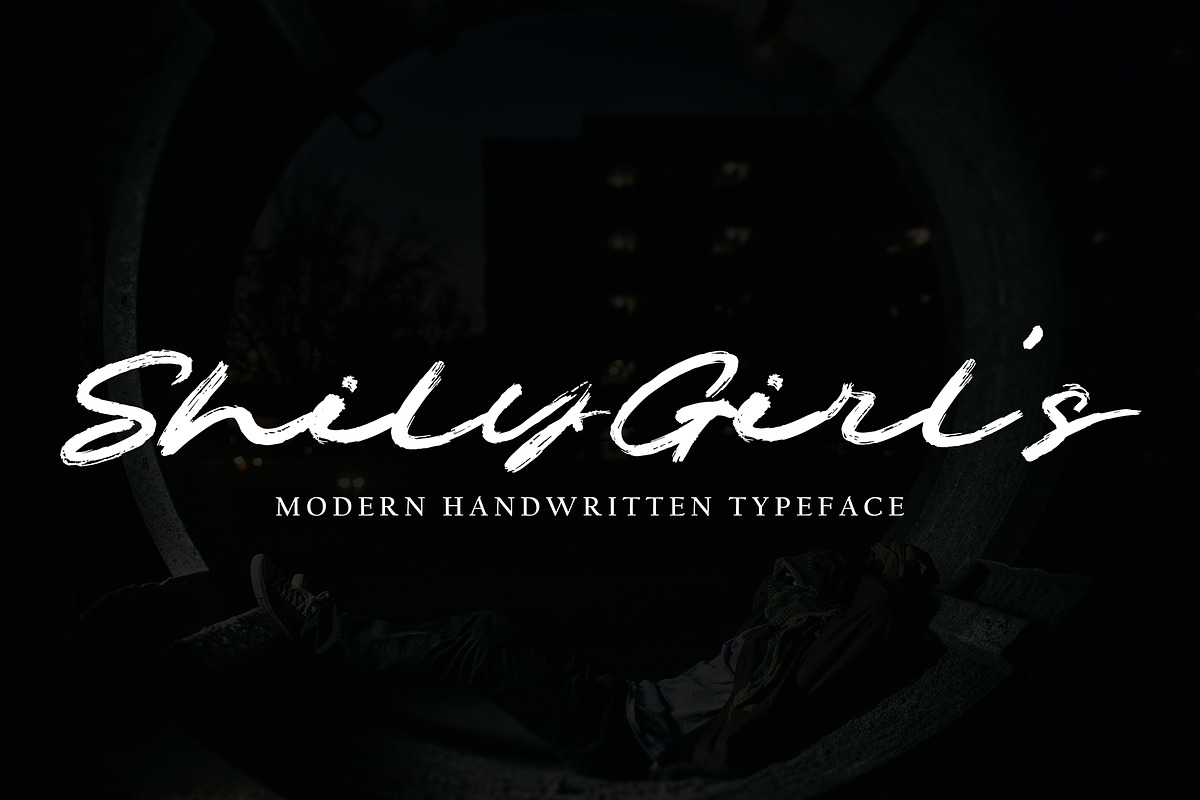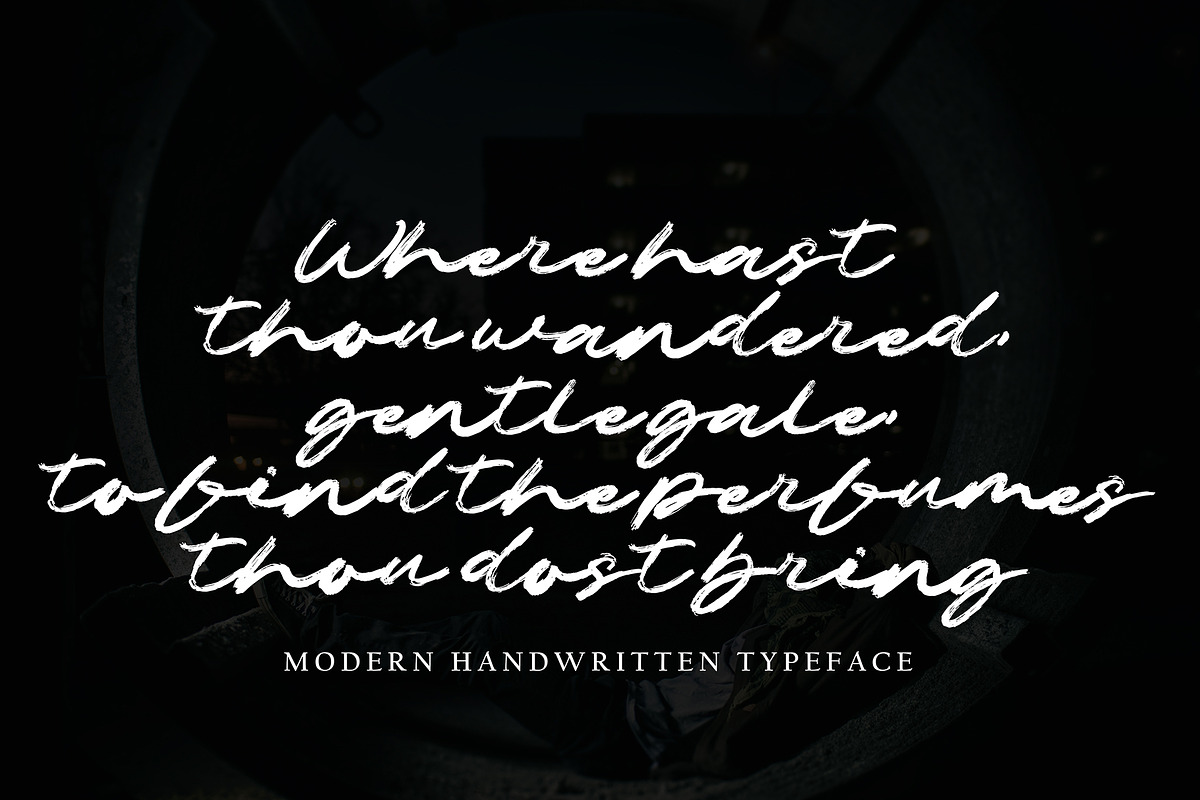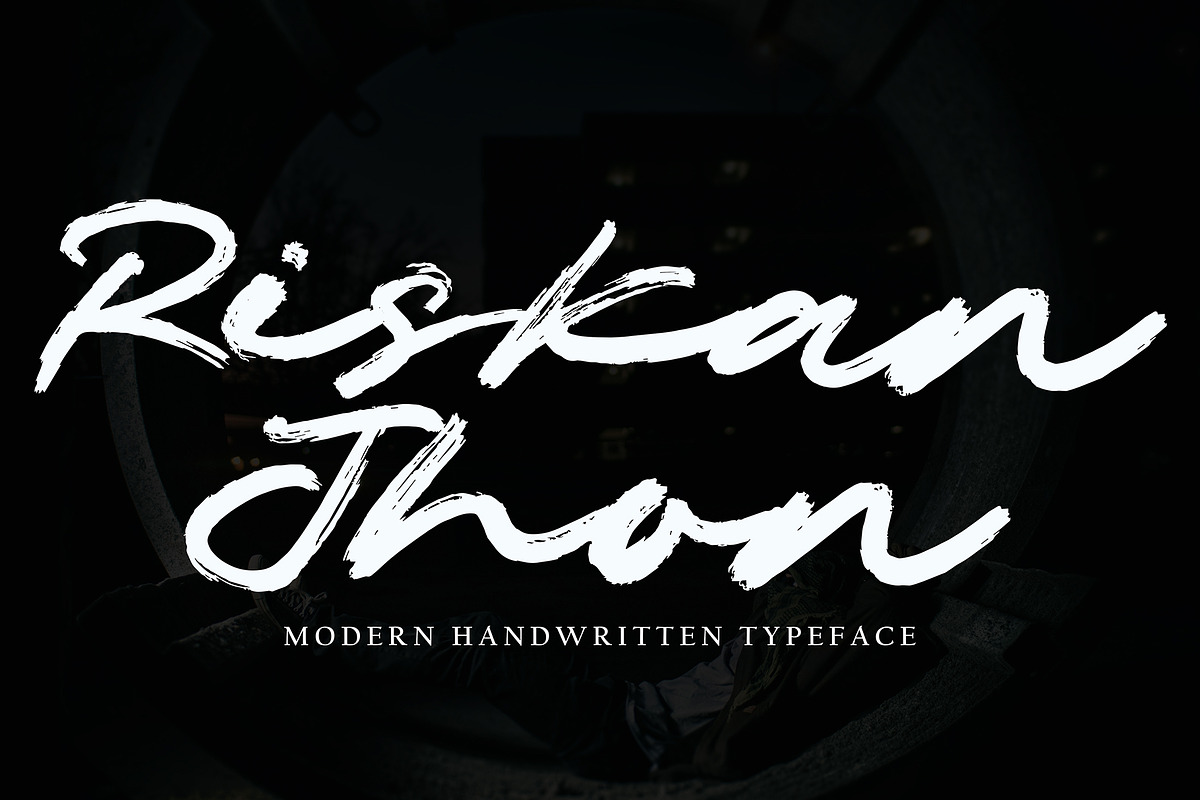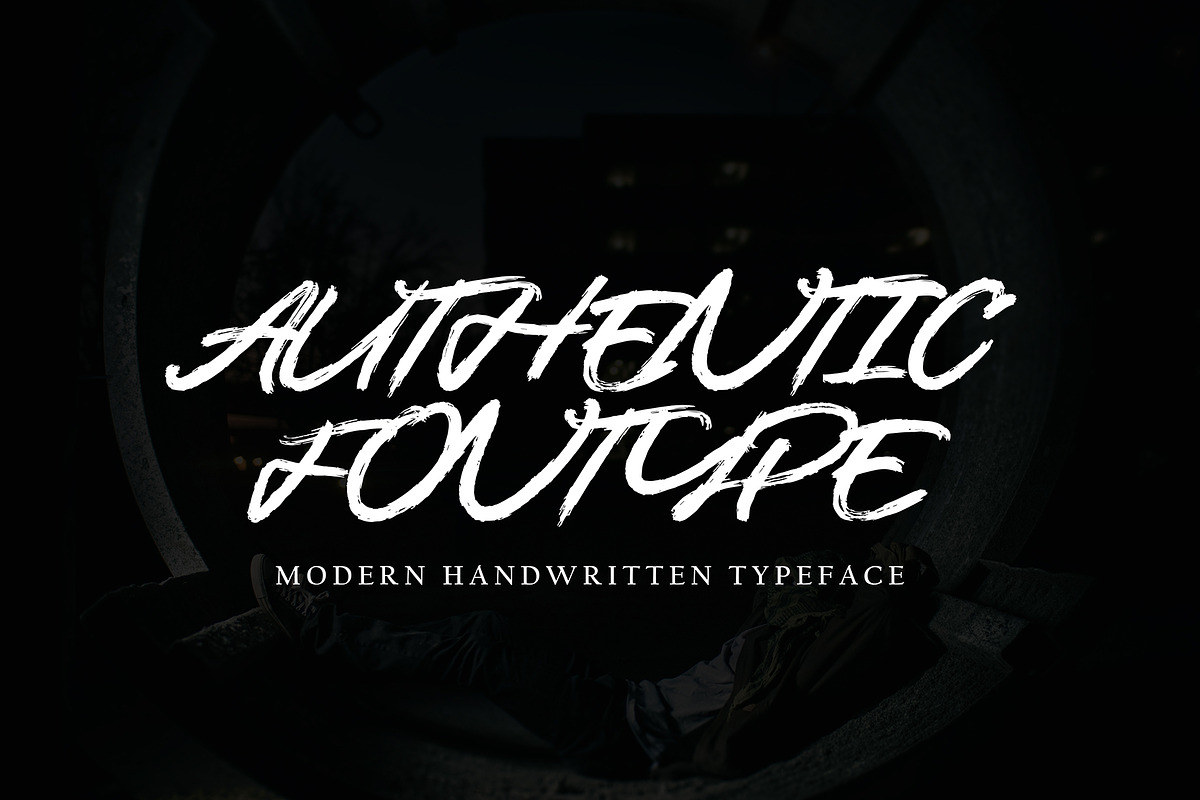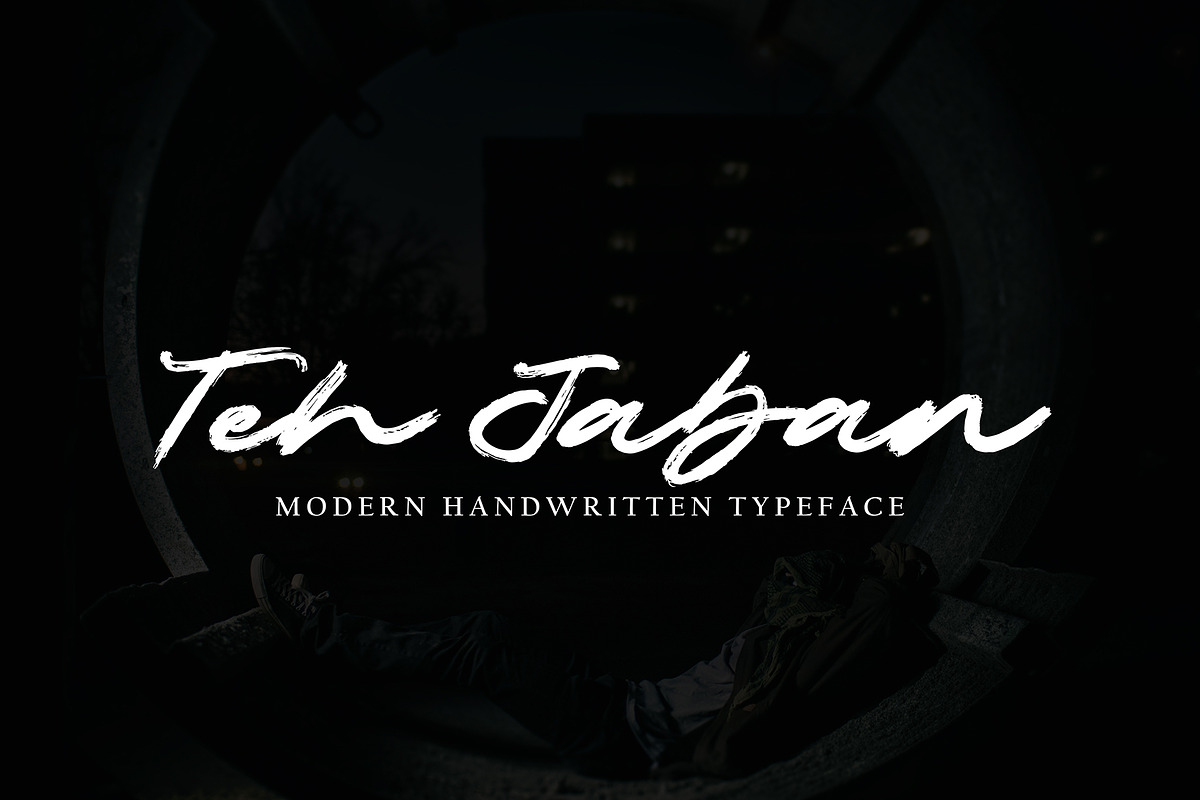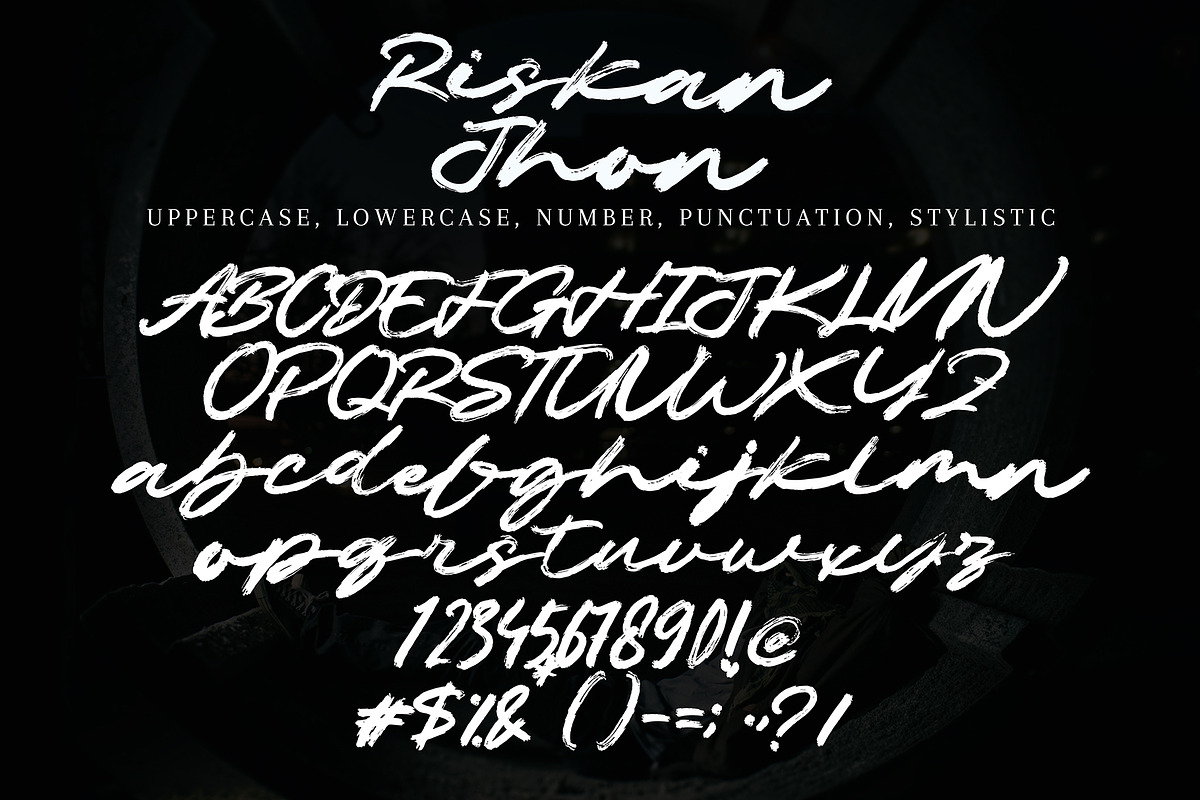
Riskan Jhon
Riskan Jhon with new style, this font will perfect for many different project ex: quotes, logo, blog header, poster, banding, letter, invitation, stationery, etc...